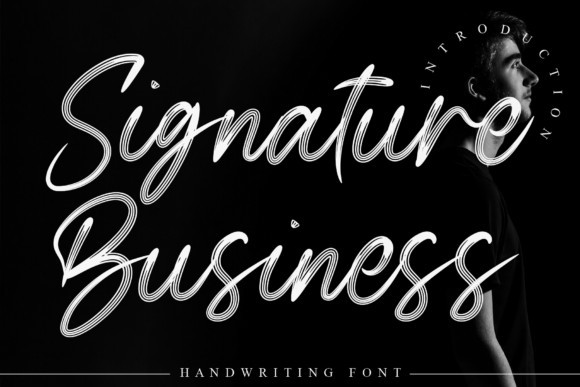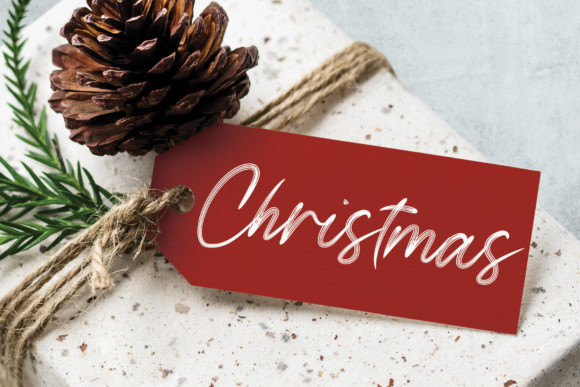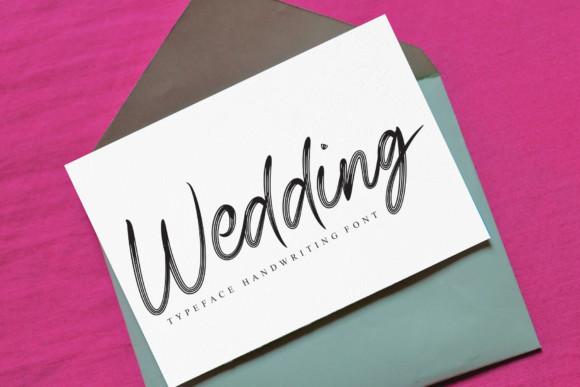
Signature Business Font
Signature Business is a delicate brushed handwritten font, featuring a sweet brush. It has beautiful and well balanced characters and as a result, it matches a wide pool of designs. Add it to your most creative ideas and notice how it makes them come alive!